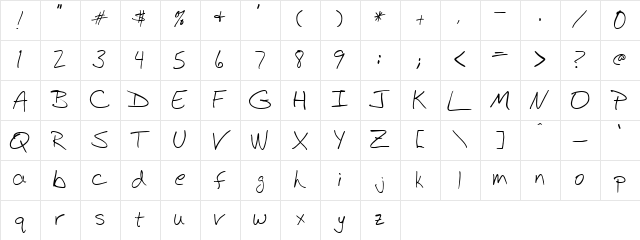
3 Peag Script Regular Free Font
3 Peag Script Regular
Designer: JupiterImages
Design Context for 3 Peag Script
3 Peag Script flows with the natural rhythm of handwritten lettering, making it ideal for designs that call for warmth and personal expression.